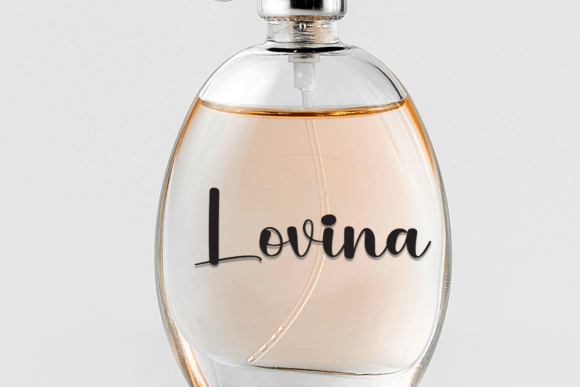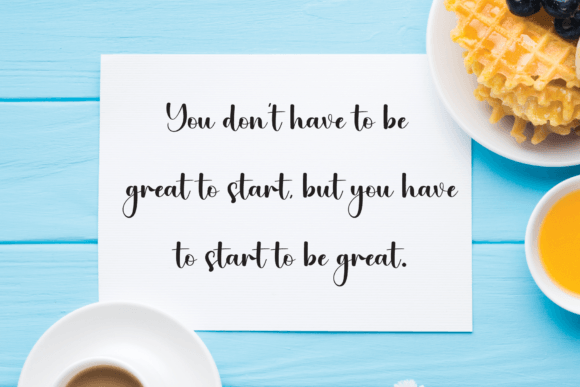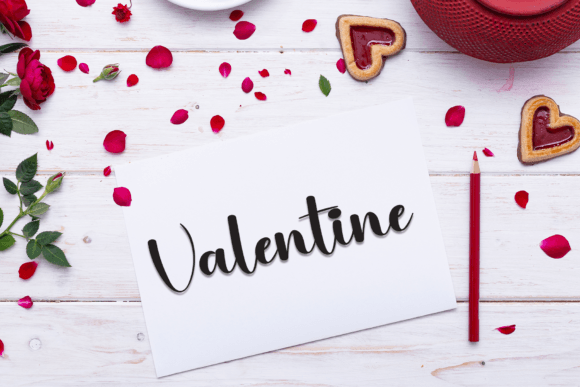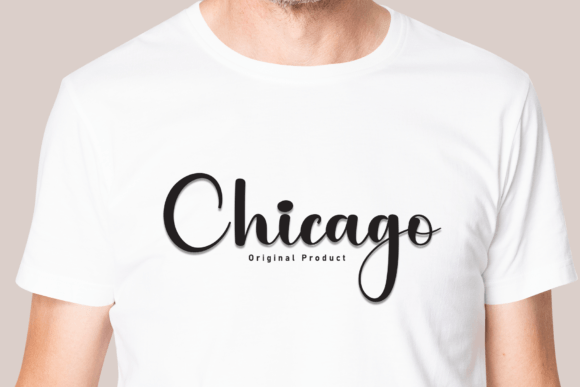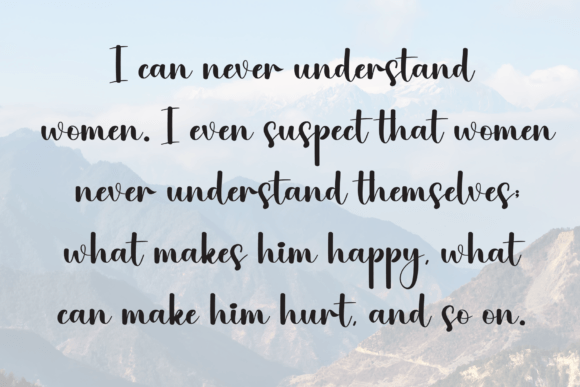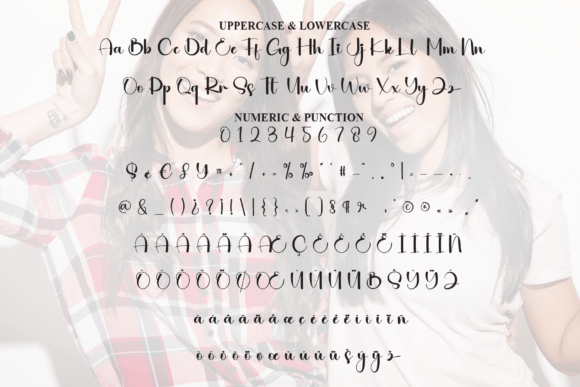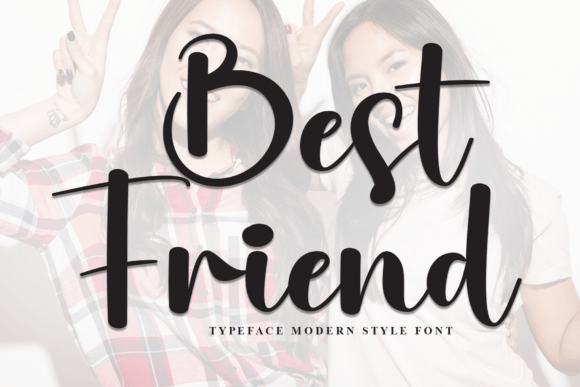
Introducing Best Friend: The Ultimate Stylish Handwritten Script Font
Are you tired of using the same old fonts for your designs? Do you want to add a touch of elegance and charm to your invitations, branding, or social media posts? Look no further than Best Friend, a beautiful handwritten script font that is sure to take your designs to the next level.
What Makes Best Friend So Special?
Best Friend is a stylish handwritten script font that exudes elegance and charm. Its fluid strokes and natural flow create a captivating, sophisticated look that is perfect for designers and crafters who want to add a personal touch to their work. Whether you’re creating invitations, branding materials, or social media posts, Best Friend is the perfect font to bring a sense of warmth and creativity to your designs.
Key Features of Best Friend Font
- Fluid Strokes: Best Friend’s fluid strokes give it a natural, handwritten feel that is perfect for creating elegant and sophisticated designs.
- Natural Flow: The font’s natural flow creates a captivating, effortless look that is sure to draw attention to your designs.
- Elegant and Charming: Best Friend’s elegant and charming design makes it perfect for adding a touch of sophistication to any design.
- Perfect for Personal Designs: Whether you’re creating invitations, branding materials, or social media posts, Best Friend is the perfect font to add a personal touch to your work.
Uses for Best Friend Font
Best Friend is a versatile font that can be used for a variety of design projects. Here are some ideas to get you started:
- Invitations: Use Best Friend to create beautiful, elegant invitations for weddings, parties, and other special events.
- Branding: Add a touch of sophistication to your branding materials, such as logos, business cards, and brochures, with Best Friend.
- Social Media: Use Best Friend to create eye-catching social media posts that are sure to stand out from the crowd.
- Stationery: Create beautiful stationery, such as notebooks, journals, and greeting cards, with Best Friend.
Why Choose Best Friend Font?
There are many fonts to choose from, but Best Friend stands out from the rest. Here are just a few reasons why:
- Unique Design: Best Friend’s unique design sets it apart from other fonts, making it perfect for designers and crafters who want to create something truly special.
- Elegant and Charming: Best Friend’s elegant and charming design makes it perfect for adding a touch of sophistication to any design.
- Easy to Read: Despite its elegant design, Best Friend is easy to read, making it perfect for use in a variety of design projects.
- Versatile: Best Friend is a versatile font that can be used for a variety of design projects, from invitations to branding materials.
Tips for Using Best Friend Font
Here are a few tips for using Best Friend font in your designs:
- Use it Sparingly: Best Friend is a elegant and charming font, so use it sparingly to add a touch of sophistication to your designs.
- Pair it with Other Fonts: Best Friend pairs well with other fonts, so don’t be afraid to experiment with different font combinations.
- Experiment with Colors: Best Friend looks great in a variety of colors, so experiment with different colors to find the perfect look for your design.
Best Friend is a beautiful handwritten script font that is perfect for designers and crafters who want to add a touch of elegance and charm to their designs. With its fluid strokes, natural flow, and elegant design, Best Friend is sure to take your designs to the next level. Whether you’re creating invitations, branding materials, or social media posts, Best Friend is the perfect font to bring a sense of warmth and creativity to your work.